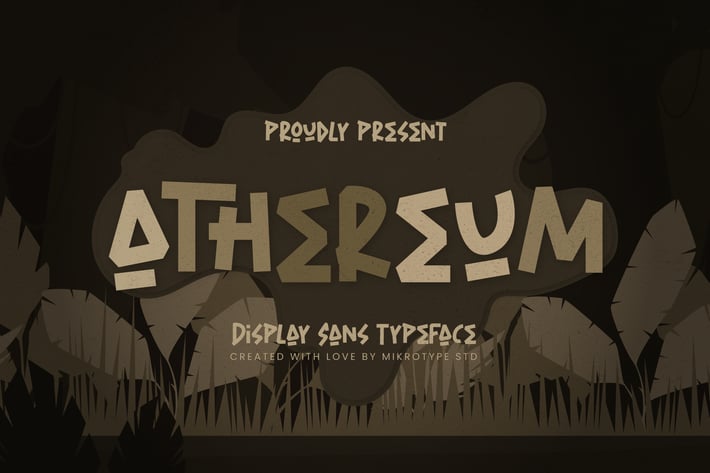
Athereum Display Advertisement Font
Introducing Athereum - Display sans typeface. Made with love, this font will make your projects look more natural and unique. Athereum is a great choice for all your big projects. There are many types of Alternates and Ligatures that make this font look even more unique. The font is perfect for for movie title, logo, blogging, brand identity, book title, social media, branding, wedding invites, cards or simply use it in your next design project and suitable to use for many occasion.